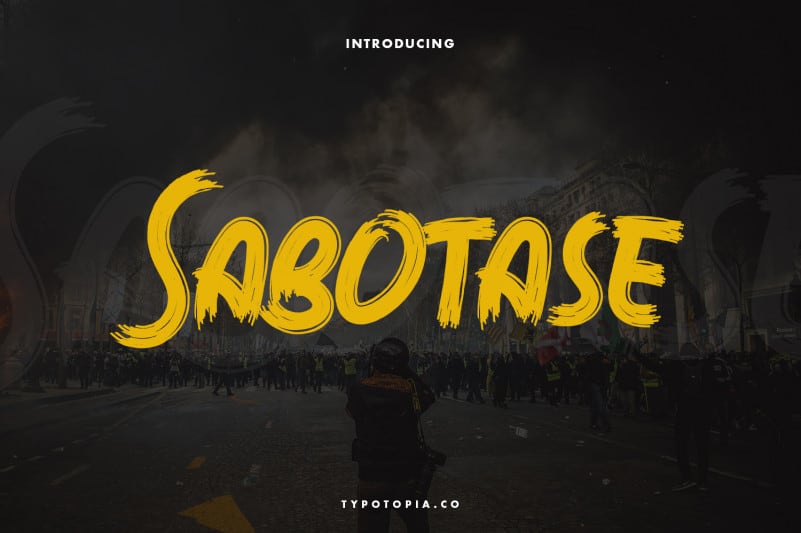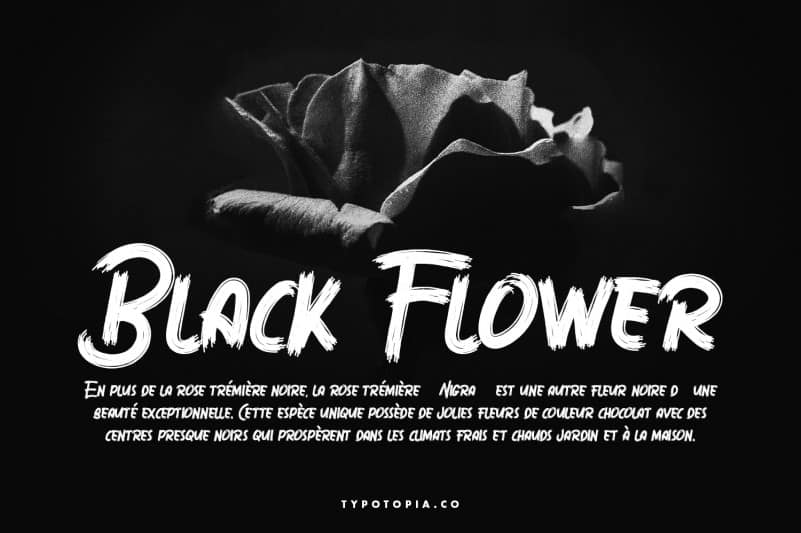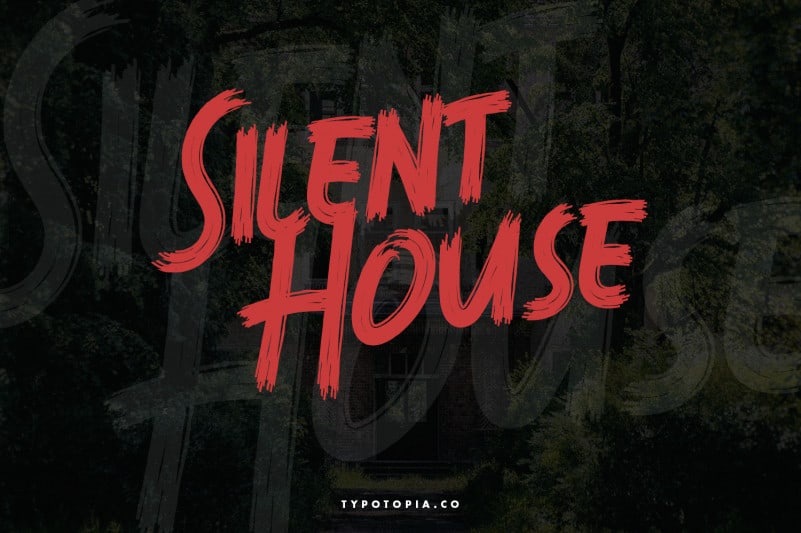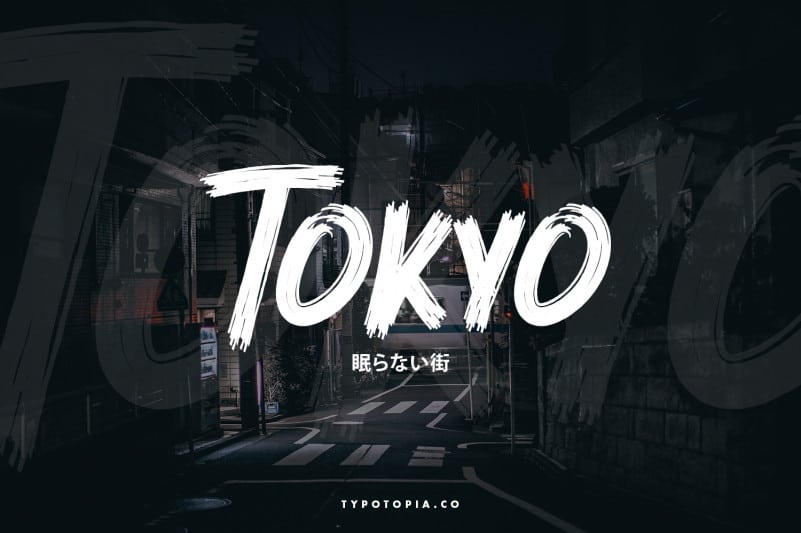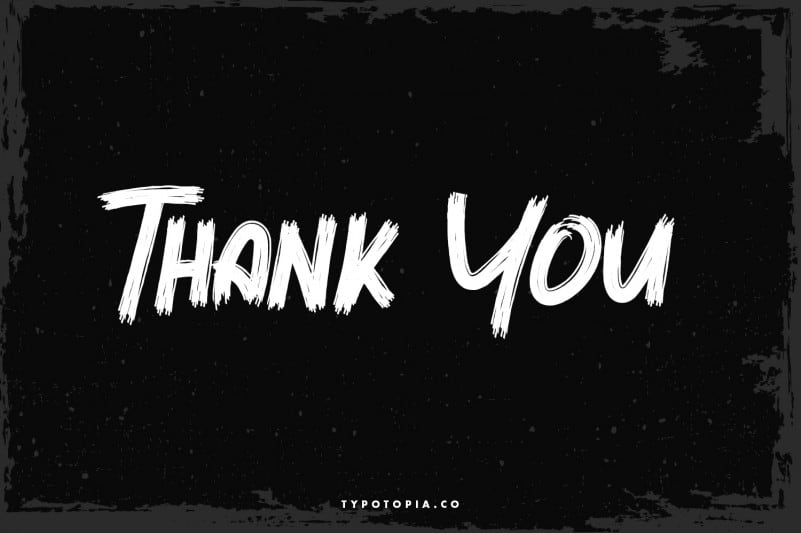
Sabotase Brush Font
Introducing Sabotase Brush Font. This Typeface Comes with 2 Style of Fonts that you can use.
Sabotase Brush Font is the great choice for several purpose, it suitable for for headline, logotype, apparel, invitation, branding, packaging, advertising etc.